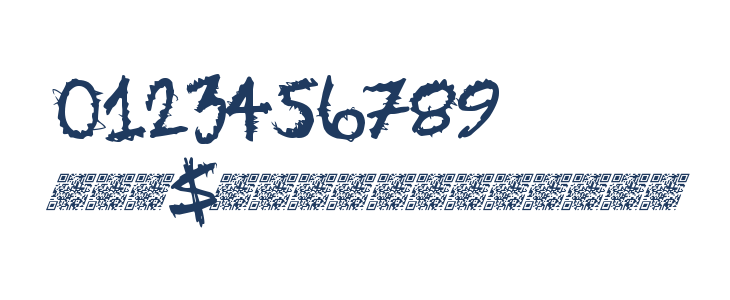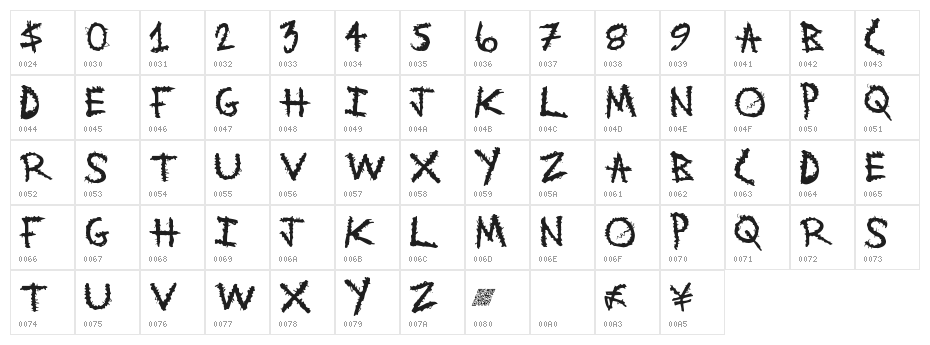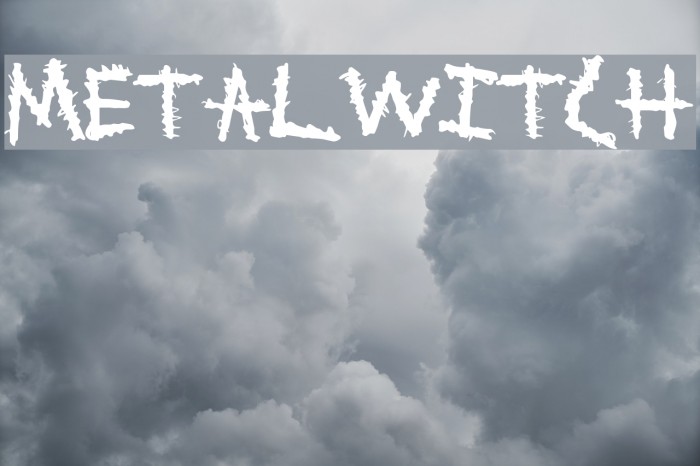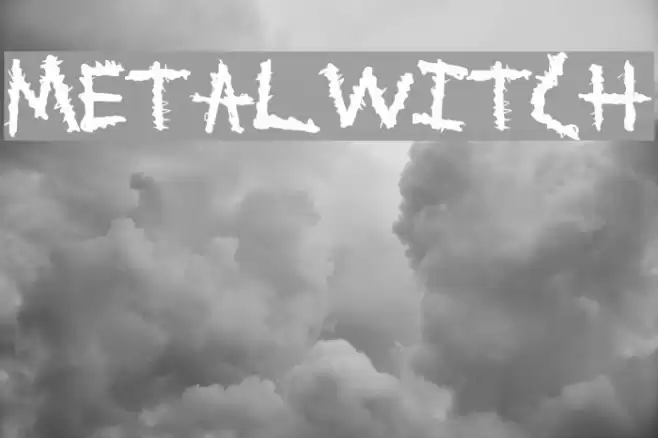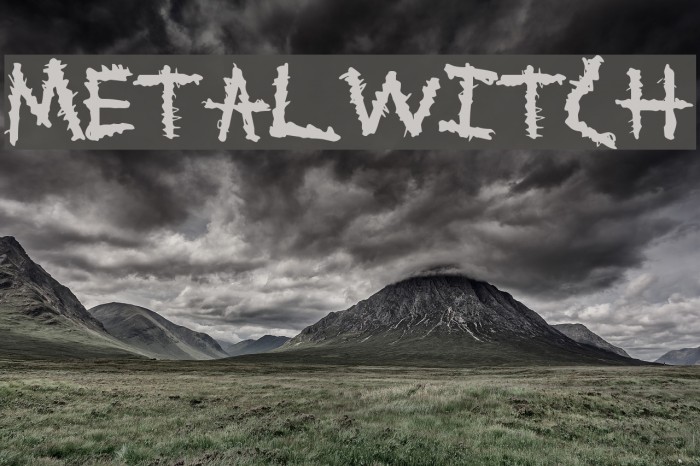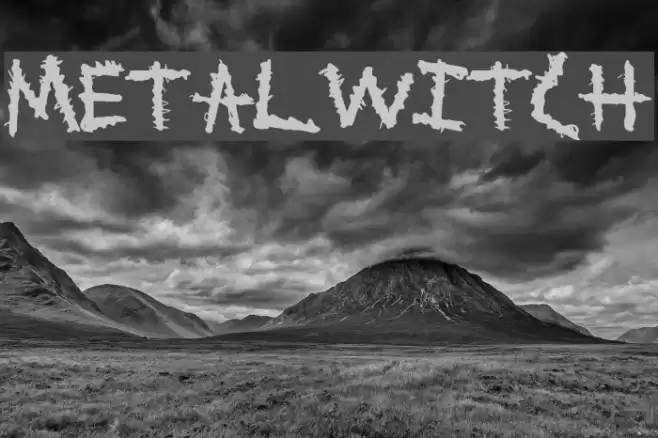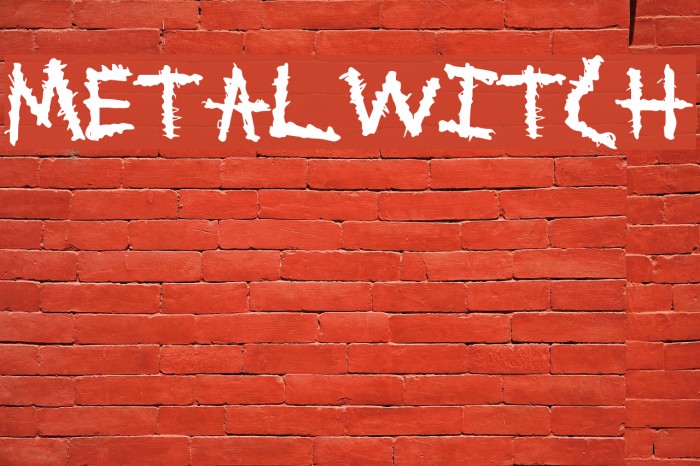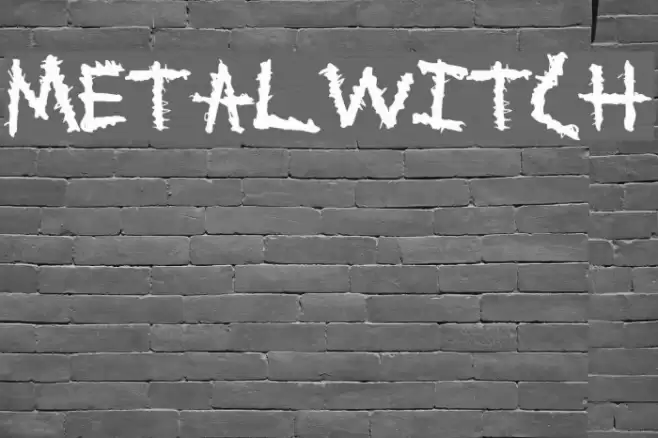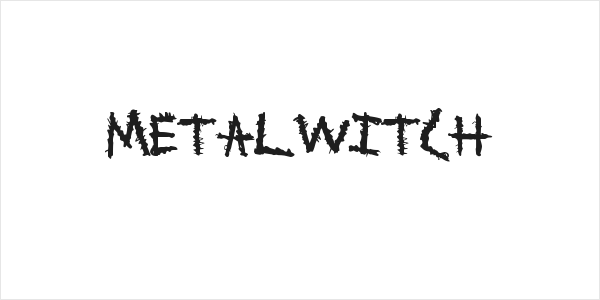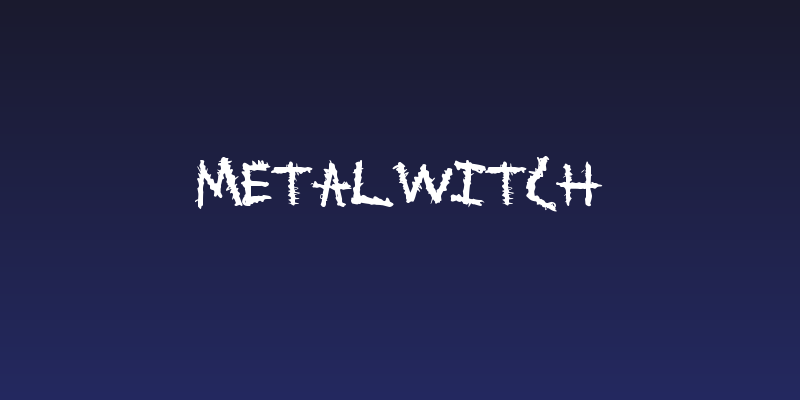
MetalWitch Font
MetalWitch Description
This font features a rugged, thorny appearance that evokes a sense of edginess and rebellion. The characters are designed with jagged edges and irregular shapes, giving them a chaotic and aggressive look. The uppercase and lowercase letters maintain a consistent style, with sharp points and uneven lines that create a dynamic and intense visual impact. The numbers and special characters follow the same aesthetic, ensuring a cohesive design throughout. This font is ideal for projects that require a bold, unconventional statement.
Use CaseLogos, Headlines
Proposed ProjectsAlbum covers, band logos, horror movie posters, edgy apparel designs.